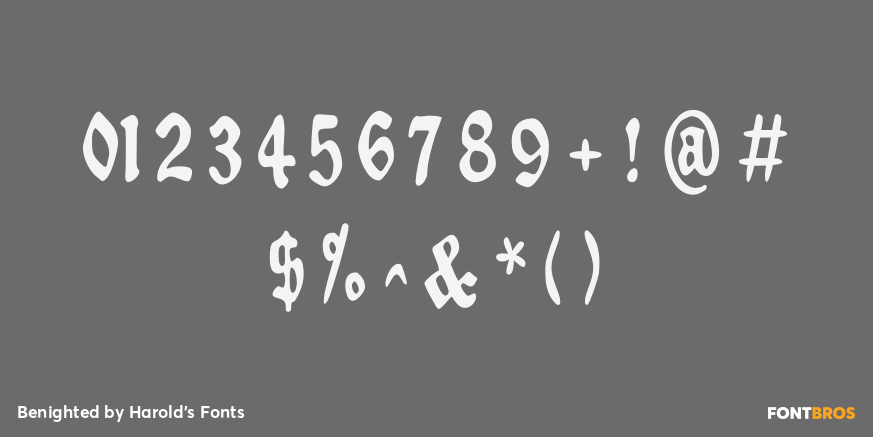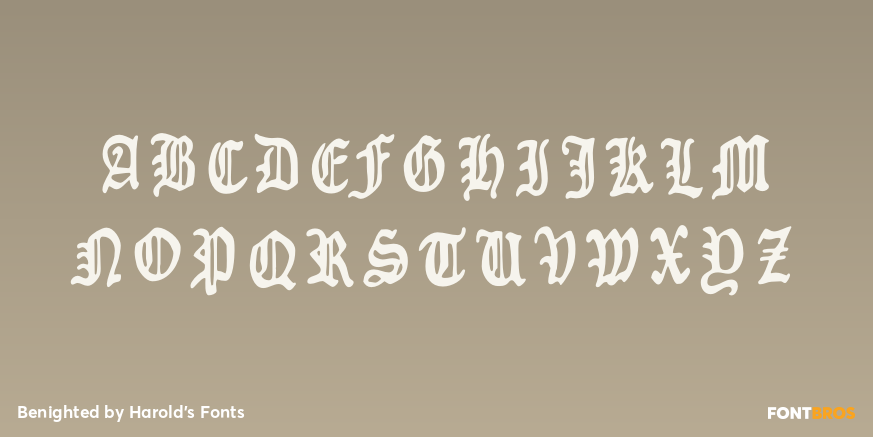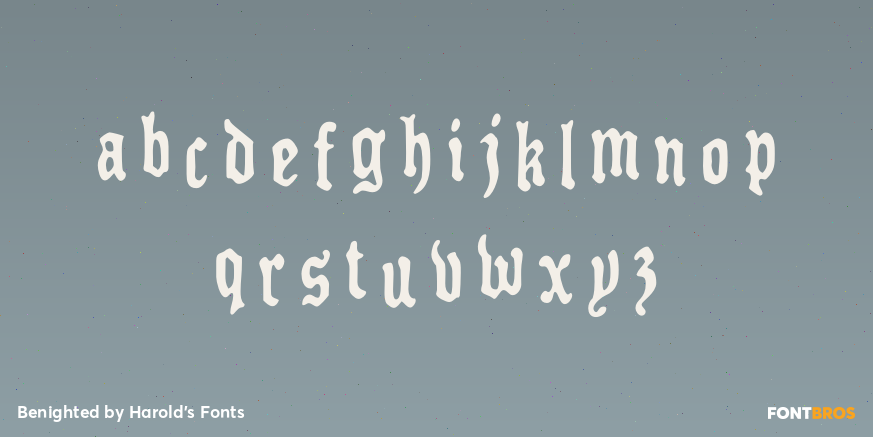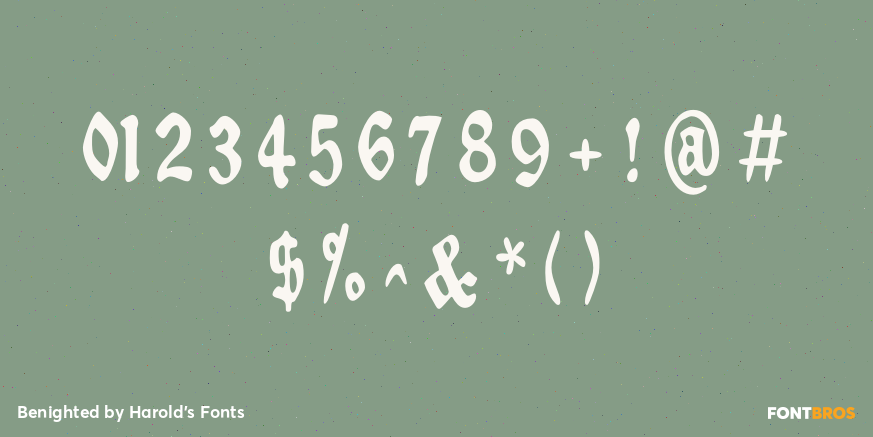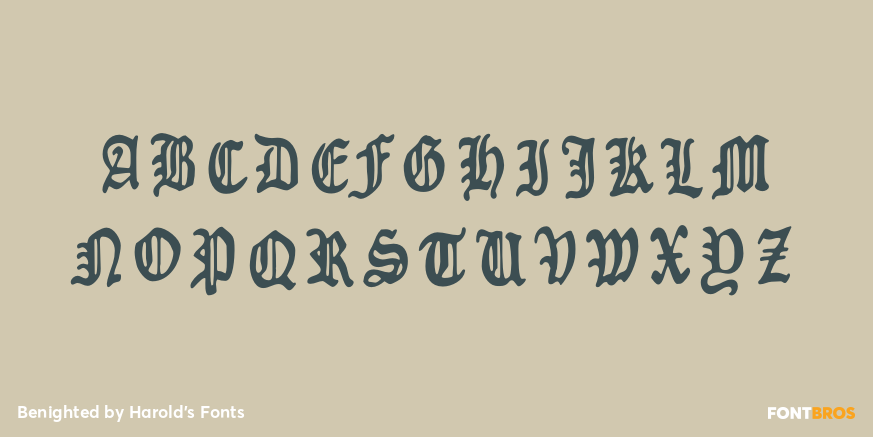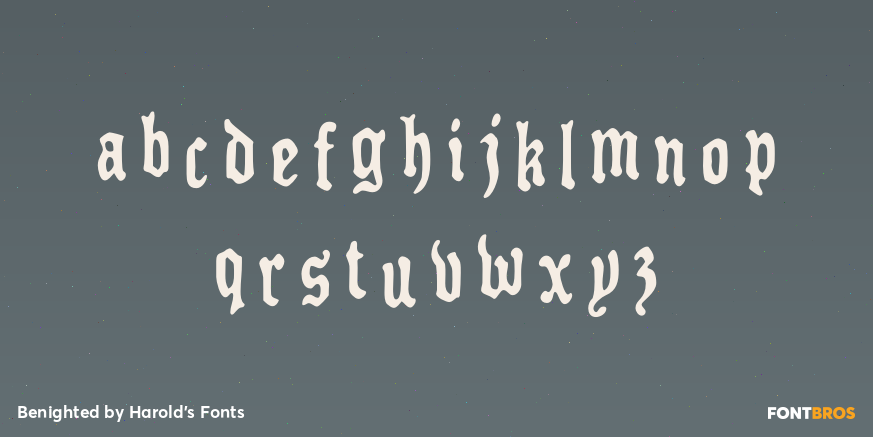
Benighted
Font Family by Harold's Fonts
BENIGHTED is my stab at a blackletter font that with a loose, hand-lettered feel, sort of an Old English Casual or Fraktur Frisky. I first drew all the letters with a Sharpie marker, ultimately creating a font with an irregular baseline and a creepy feel. And now there's a matching font with drips suggesting melting candles or blood.